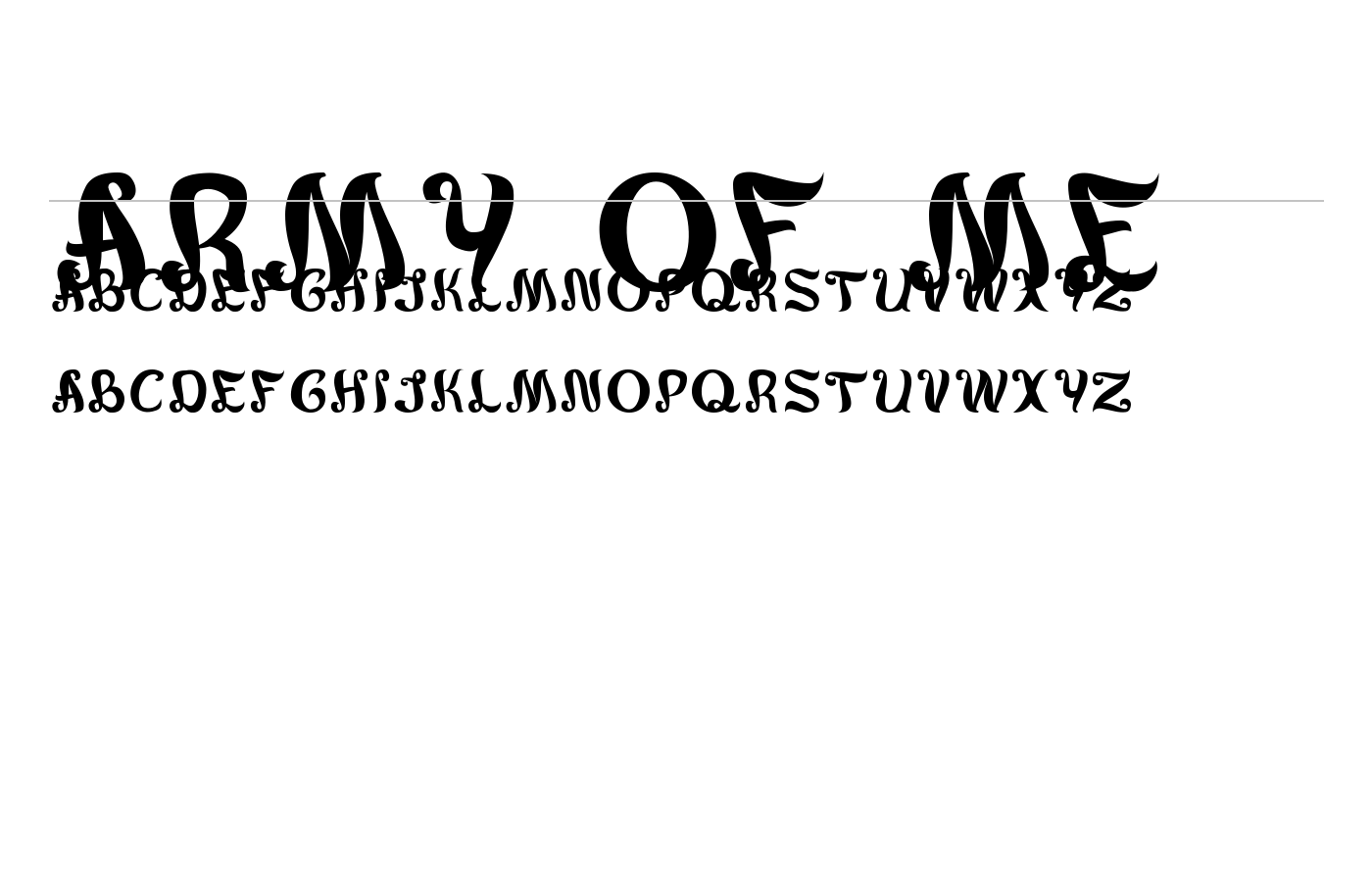
Army of Me is a bold, decorative serif font with a playful and slightly gothic feel, characterized by its thick strokes, rounded terminals, and whimsical serifs that curl like flourishes. Its high contrast and exaggerated forms give it a strong, impactful presence, making it ideal for attention-grabbing headlines, logos, or branding that seeks a unique, dramatic, and slightly vintage vibe. This font works best where personality and boldness are essential, such as in posters, fashion branding, or creative editorial designs.
army of me Font